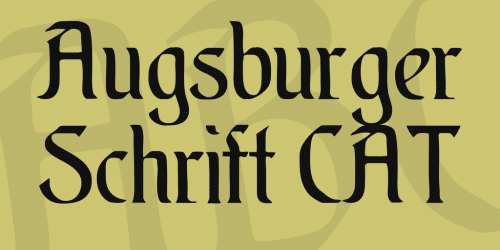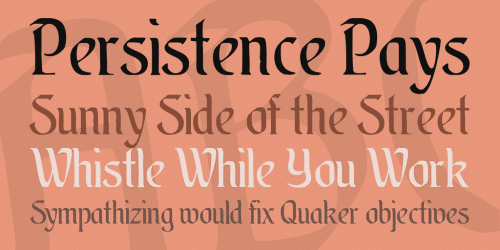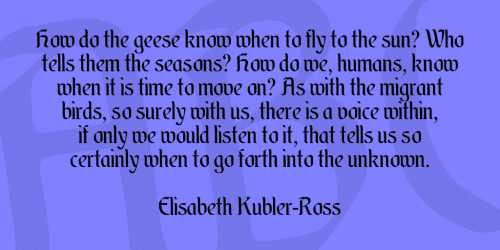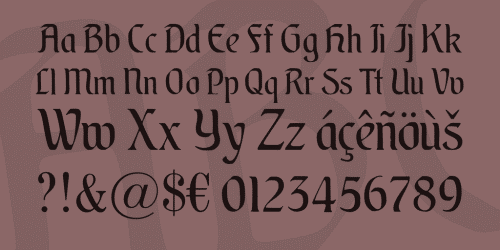
Augsburger Schrift Cat Font
Augsburger Schrift Cat Font was Designed in 1902 by Peter Schnorr and published by Berthold in Berlin and by Bauer & Co in Stuttgart, the “Augsburger Schrift” is one of these typical early Art Nouveau fonts.